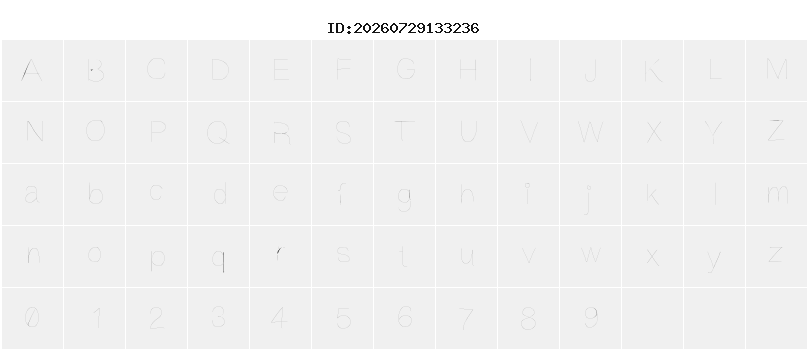
Kriekl Preview
About Kriekl.ttf
Kriekl.ttf is a modern, elegant sans-serif font designed for ultimate readability and visual harmony. Perfect for branding, headlines, web design, and print materials.